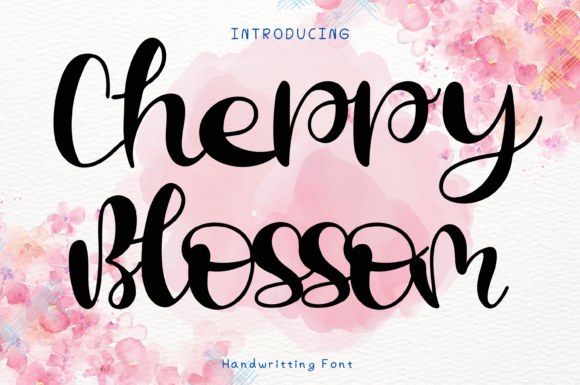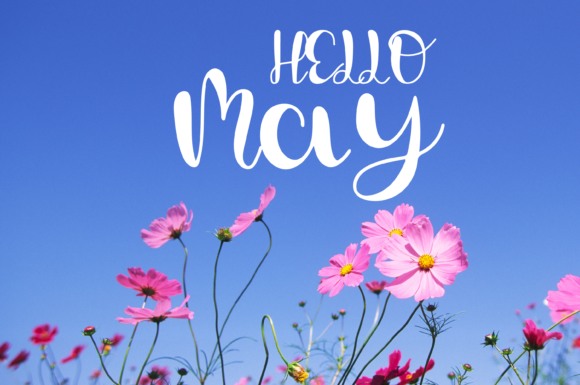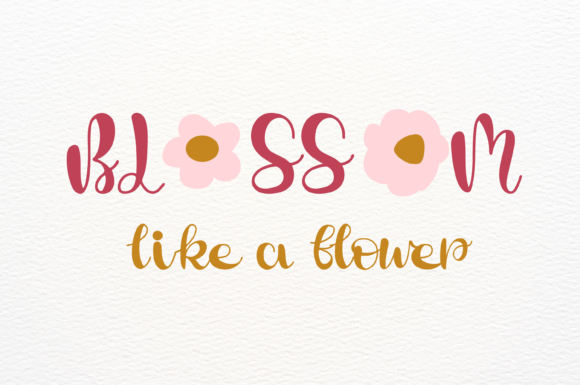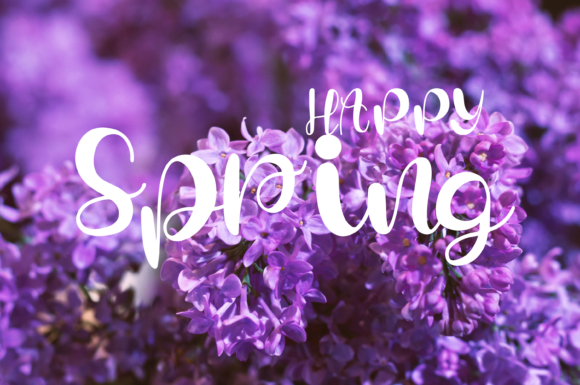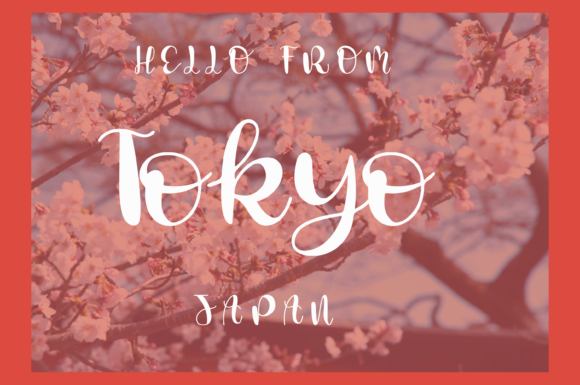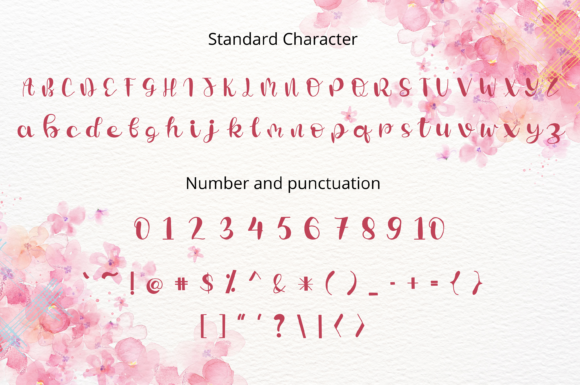
About Cherry Blossom Font
Cherry Blossom is a whimsical and chic handwritten font that adds a touch of playfulness and style to a wide range of projects. Its versatile design makes it a great choice for various creative endeavors. Whether used in branding, product packaging, social media, or any other creative context, Cherry Blossom has the ability to make your projects stand out with its unique charm.
The whimsical and chic qualities of Cherry Blossom make it suitable for a diverse set of projects. Its playful strokes and stylish appearance can add a lighthearted and fashionable touch to your designs, making them more visually appealing.
In branding, Cherry Blossom’s whimsical and chic handwritten style can be employed to create logos, headlines, or other elements that convey a sense of creativity and modernity. The font’s distinctive design helps create a memorable and unique visual identity for your brand.
For product packaging, Cherry Blossom’s playful and stylish look can enhance the overall aesthetic, making the packaging more eye-catching and engaging. The font’s versatility allows it to adapt to different themes and product types, adding a touch of whimsy to the visual presentation.
In social media graphics or any creative context, Cherry Blossom’s chic and whimsical appearance provides a trendy and visually appealing typography choice. Whether used for headlines, captions, or quotes, the font brings a sense of fun and style to your visual content.
Adding Cherry Blossom to your creative ideas allows you to explore its unique charm and notice how it makes your projects stand out. Its whimsical and chic handwritten font adds character and personality to your designs, making them more memorable and captivating.
In summary, Cherry Blossom is more than just a font; it’s a whimsical and chic design tool that enhances the creative appeal of your projects. Whether applied to branding, packaging, social media, or other design contexts, Cherry Blossom brings a playful and stylish aesthetic that elevates your typographic compositions with charm and character.